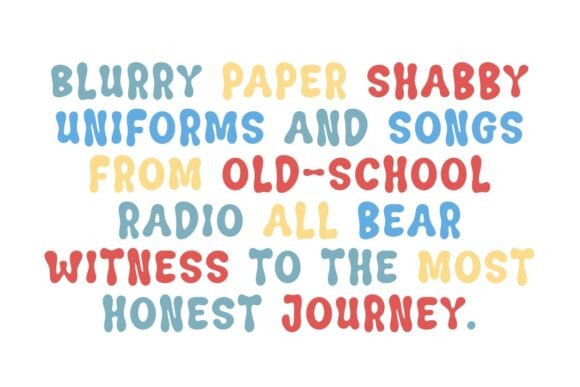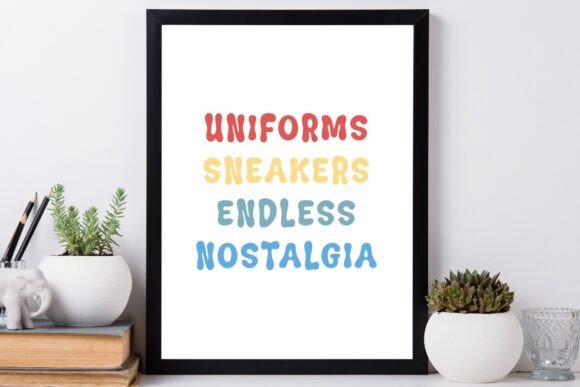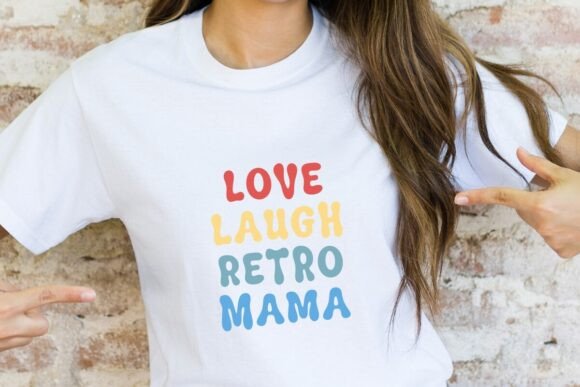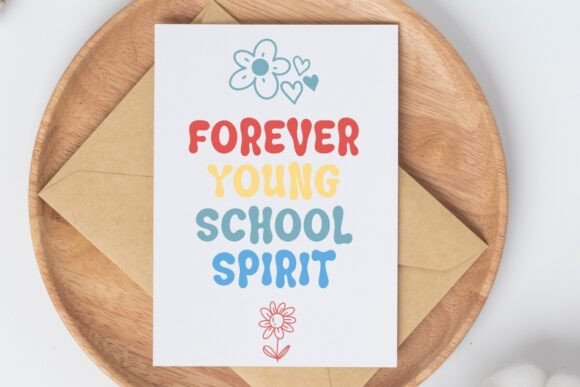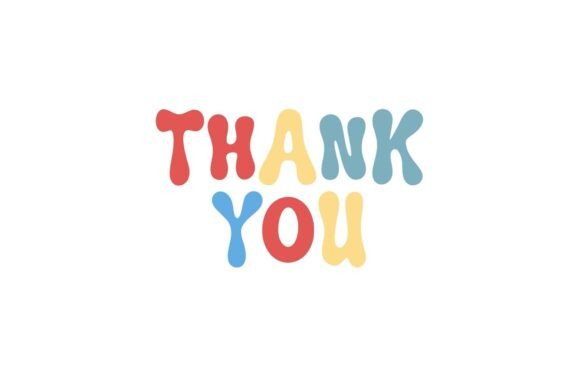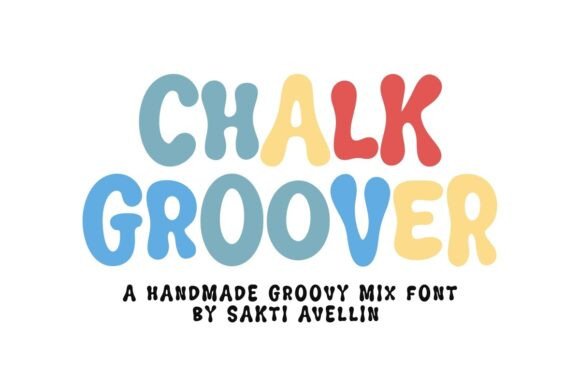
Introducing Chalk Groover: The Ultimate Retro-Groovy Font for Creative Projects
Are you tired of using the same old fonts for your designs? Look no further than Chalk Groover, a unique and artisan-crafted font that embodies a vivid retro-groovy aura. This font is not just a tool for creating text, but a creative accomplice that can help you express your uniqueness and add a dash of personality to a wide range of craftworks.
The Unique Charm of Chalk Groover
Chalk Groover is a font that dances to its own rhythm, oozing innate appeal by intermingling upper and lowercase letters to create a mesmeric mix of variations. This distinctive approach to font design makes Chalk Groover stand out from the crowd, giving your designs a fresh and playful look that’s sure to capture attention. Whether you’re working on a t-shirt, greeting card, coffee mug, or poster, Chalk Groover is the perfect choice for adding a touch of retro groove to your project.
One of the key benefits of Chalk Groover is its versatility. This font is not limited to a specific type of project or medium. Instead, it can be used across a wide range of craftworks, from key chains and doormats to hoodies and more. Whether you’re a designer, crafter, or DIY enthusiast, Chalk Groover is the ultimate tool for adding a personal touch to your creations.
Capturing the Spirit of Your Branding
Chalk Groover is more than just a font – it’s a way to capture the spirit of your branding and bring it to life. With its unique and playful vibe, this font can help you create designs that are not only visually appealing but also authentic and engaging. Whether you’re looking to create a cohesive brand identity or simply want to add a touch of personality to your designs, Chalk Groover is the perfect choice.
The creative possibilities with Chalk Groover are endless. Imagine using this font to create a custom t-shirt design that’s sure to turn heads, or adding a playful touch to a greeting card or poster. You could even use Chalk Groover to create a unique and eye-catching design for a coffee mug or key chain. The possibilities are limitless, and the only limit is your imagination.
Why Choose Chalk Groover?
So why choose Chalk Groover over other fonts? Here are just a few reasons why this font stands out:
- Unique and playful vibe: Chalk Groover has a distinctive retro-groovy aura that’s sure to capture attention and add a touch of personality to your designs.
- Versatility: This font can be used across a wide range of craftworks, from t-shirts and greeting cards to coffee mugs and posters.
- High-quality design: This font is artisan-crafted with attention to detail, ensuring a high-quality design that’s sure to impress.
Get Ready to Add a Sprinkle of Retro Groove to Your Designs
If you’re looking for a font that can help you add a touch of personality and uniqueness to your designs, look no further than Chalk Groover. With its vivid retro-groovy aura, versatility, and user-friendly design, this font is the perfect choice for designers, crafters, and DIY enthusiasts alike. So why wait? Discover the joys of Chalk Groover today and start adding a sprinkle of retro groove to your designs!
In conclusion, Chalk Groover is a one-of-a-kind font that’s sure to take your designs to the next level. With its unique and playful vibe, versatility, and high-quality design, this font is the ultimate creative accomplice for projects of all kinds. Whether you’re a seasoned designer or just starting out, Chalk Groover is a must-have tool for adding a touch of personality and uniqueness to your creations. So why not give it a try and see the difference it can make?